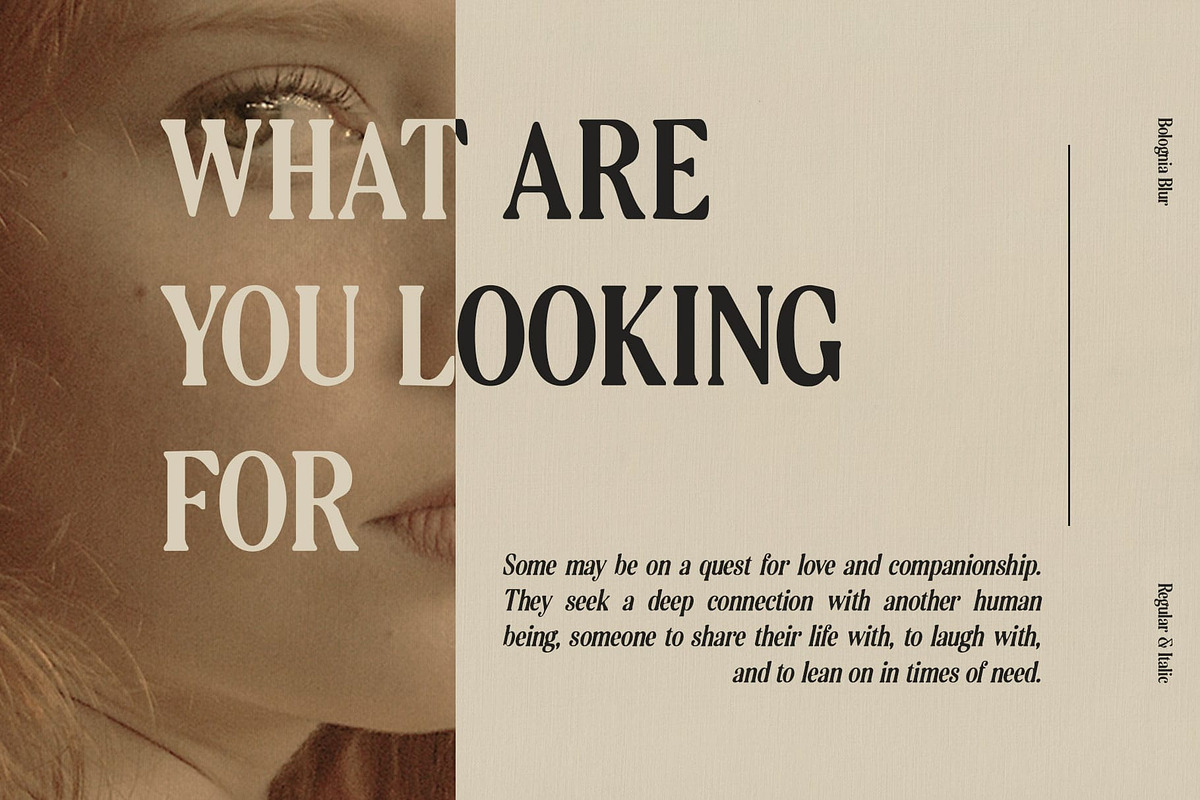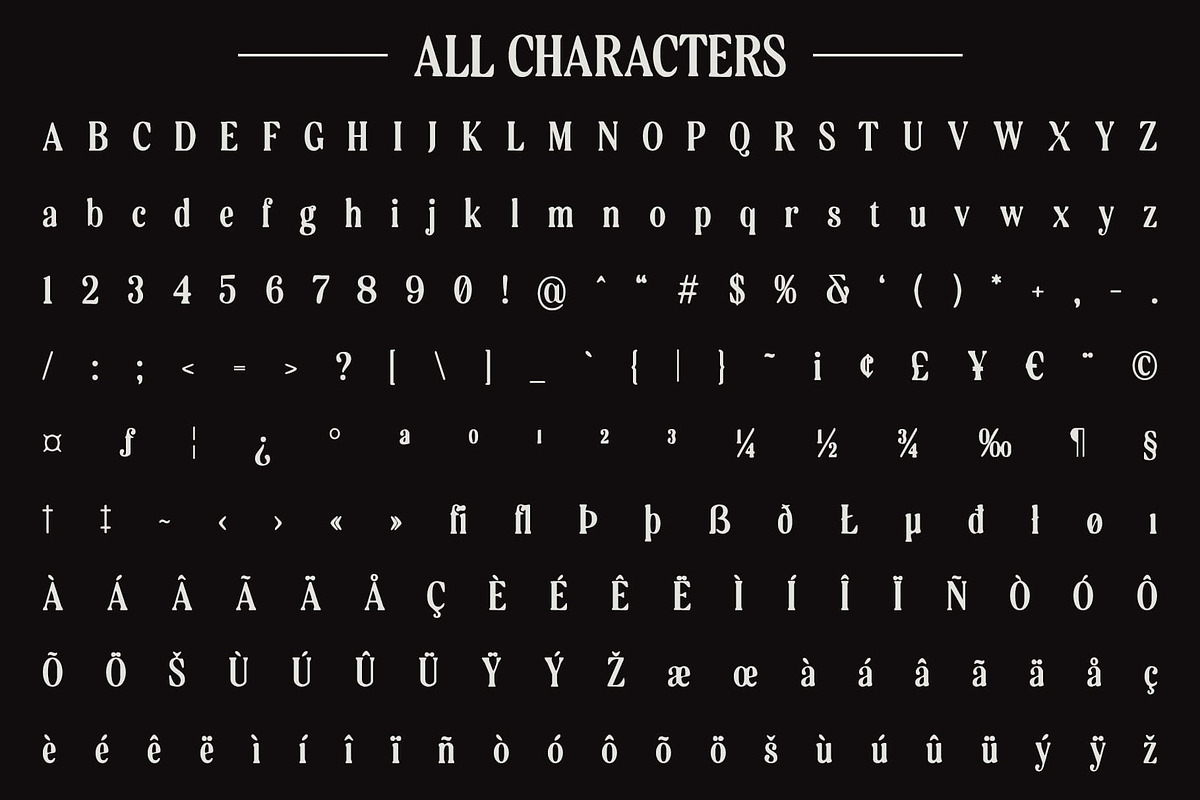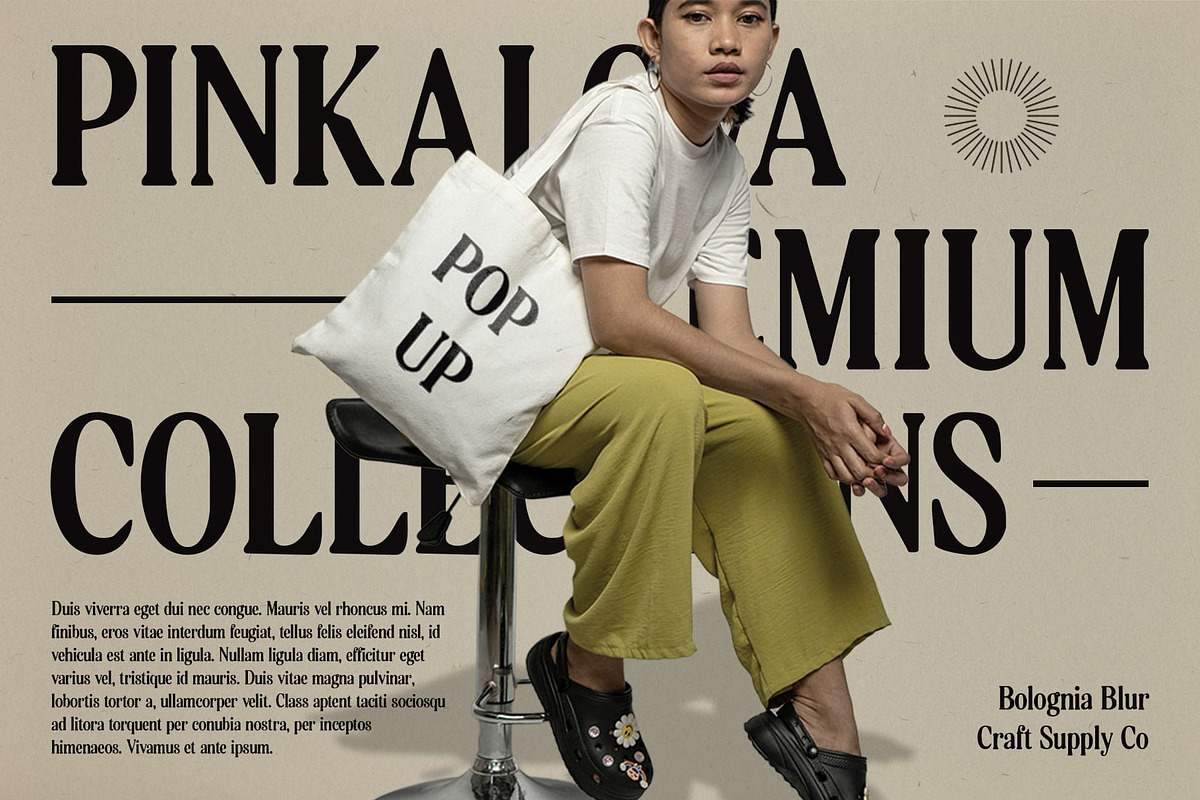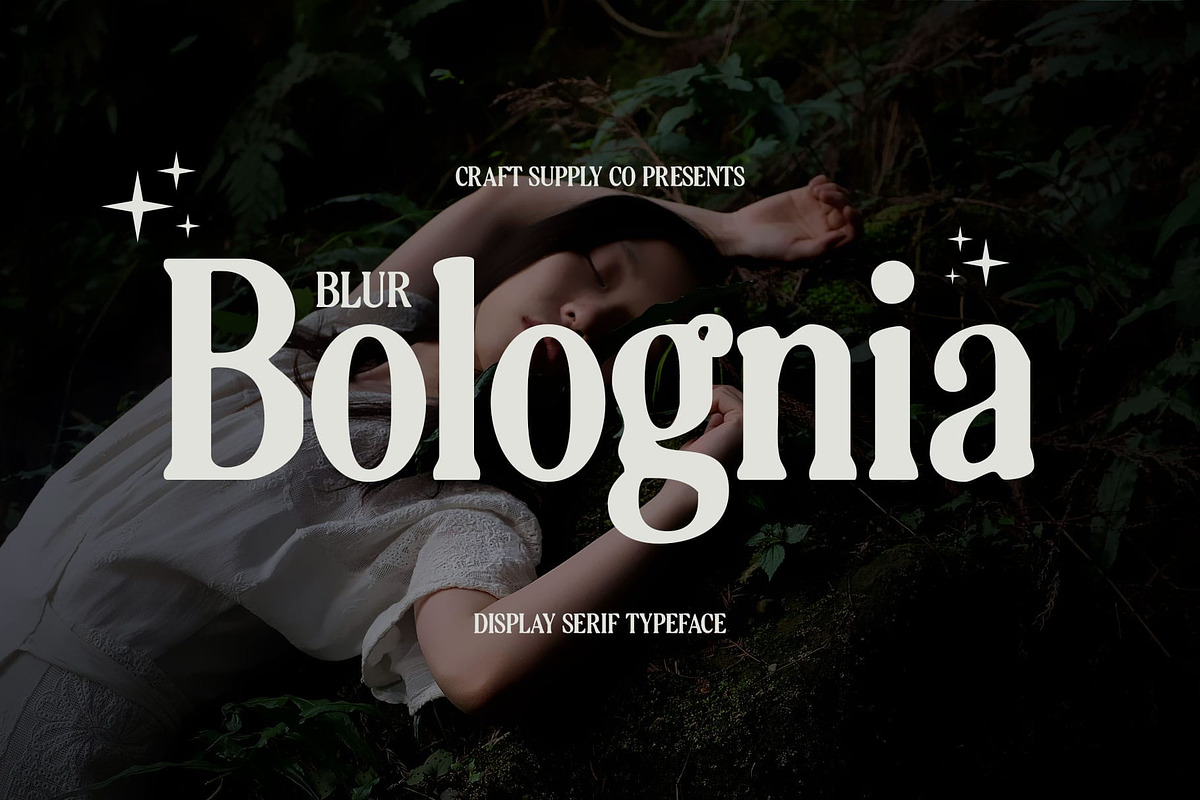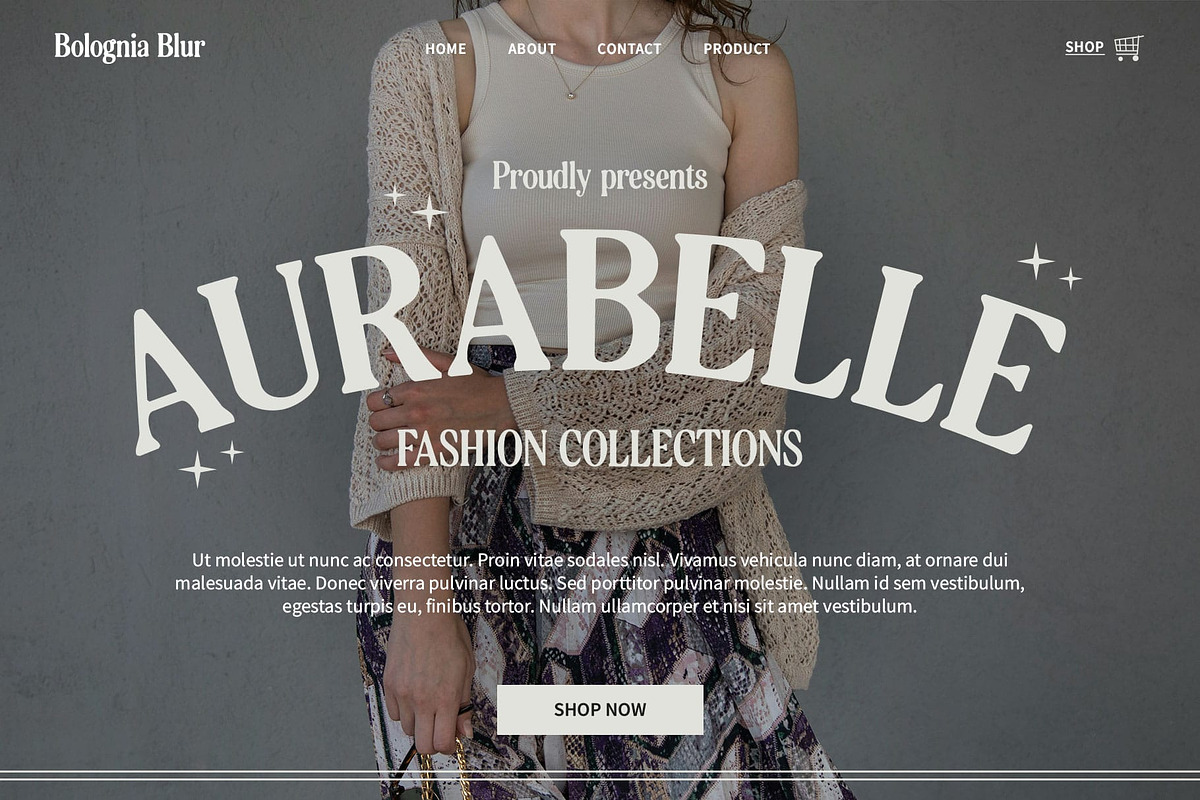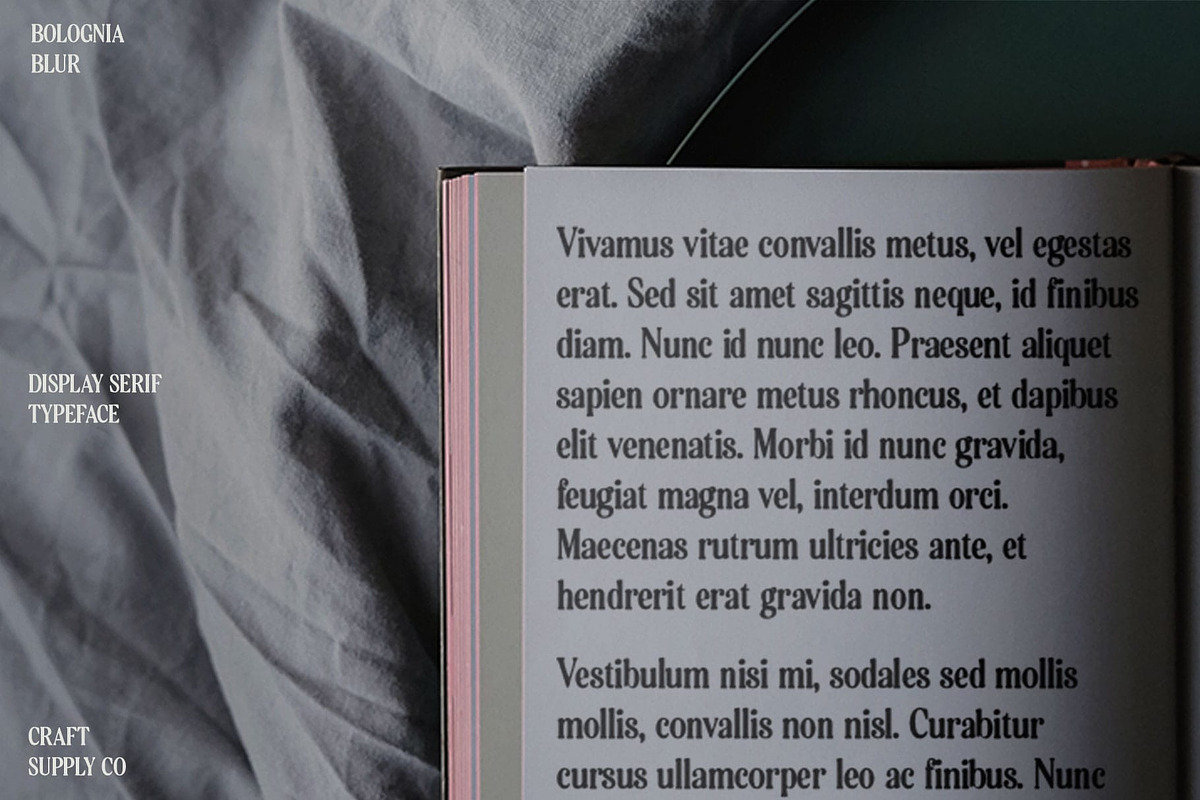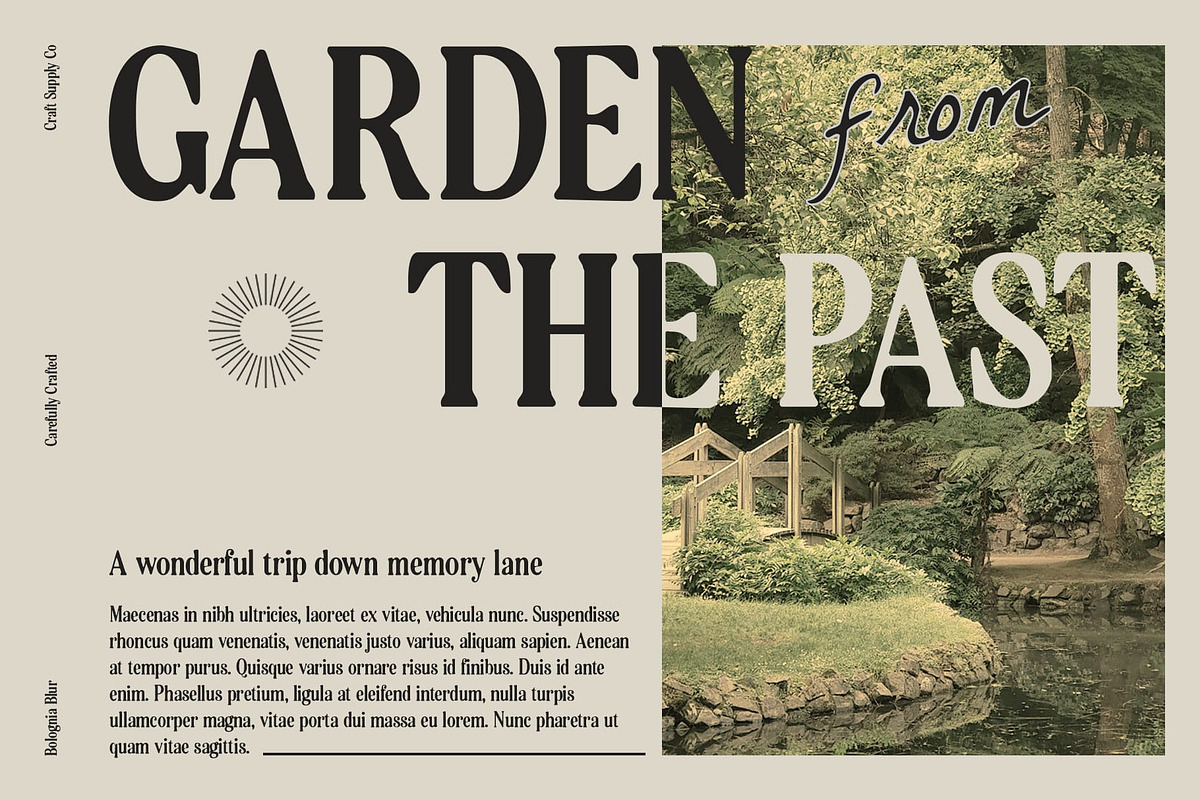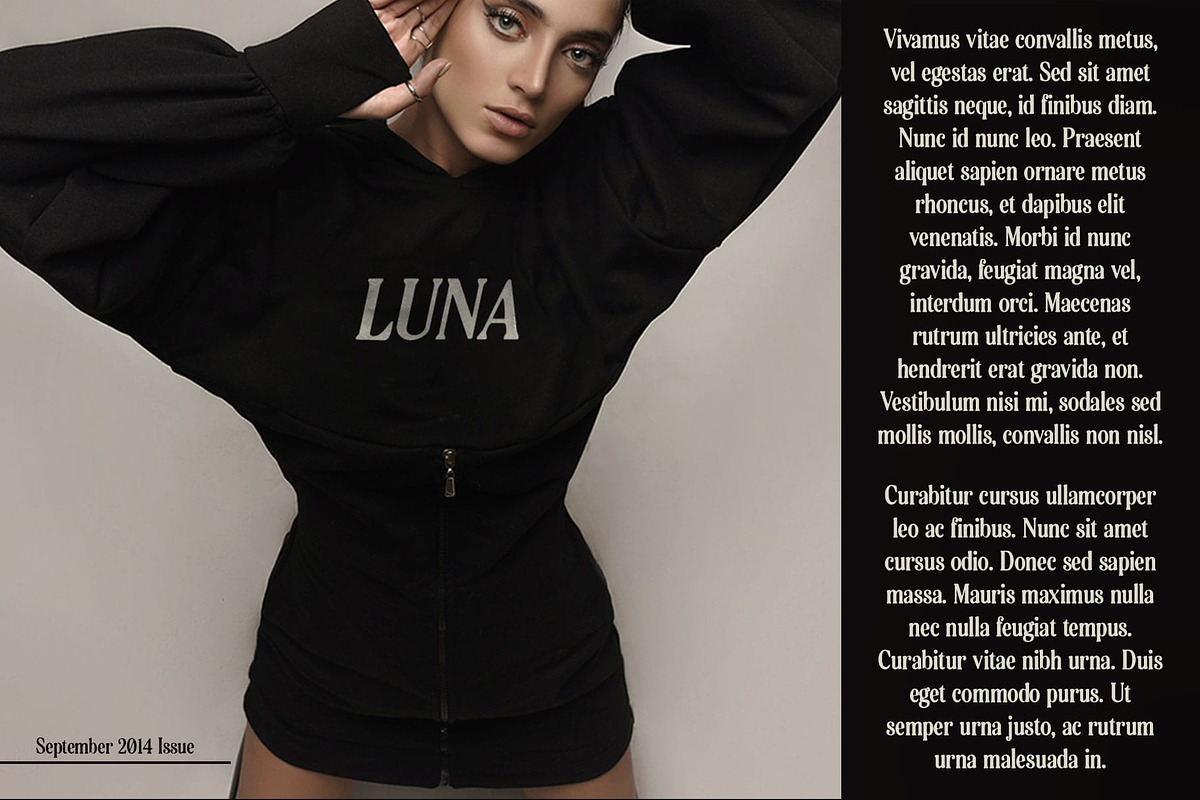
Bolognia Blur
Bolognia Blur: Classic Serif Font with Retro Feel and Blur Effect
Classic Yet Modern Bolognia Blur is a classic serif font with a retro feel and blur effect. Ideal for designs aiming to evoke a classic yet modern impression, this font gives a unique and appealing look to various types of designs.
Ideal for Timeless Designs Perfect for headlines, banners, and other display purposes, Bolognia Blur ensures your message is both seen and remembered. Its classic serif style, combined with a retro feel and blur effect, makes it a timeless choice for designs seeking to create a classic yet modern impression.
Versatile and Distinctive Despite its retro appearance, Bolognia Blur remains versatile and distinctive. Its serif font format makes it suitable for a wide range of projects, from branding to digital designs, where a font with a classic yet modern vibe is essential for making a statement.
Perfect for Adding a Unique Classic Touch Bolognia Blur is ideal for projects requiring a font with a unique classic touch. Whether you’re designing a poster, logo, or website, this font will undoubtedly add a distinct and memorable element to your designs.